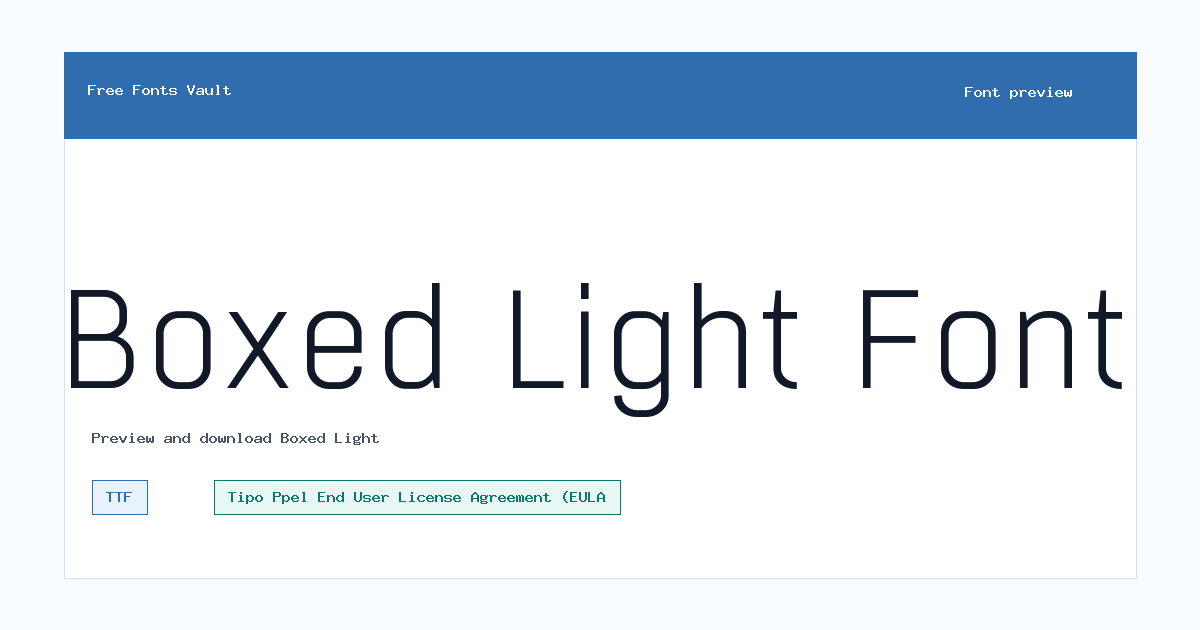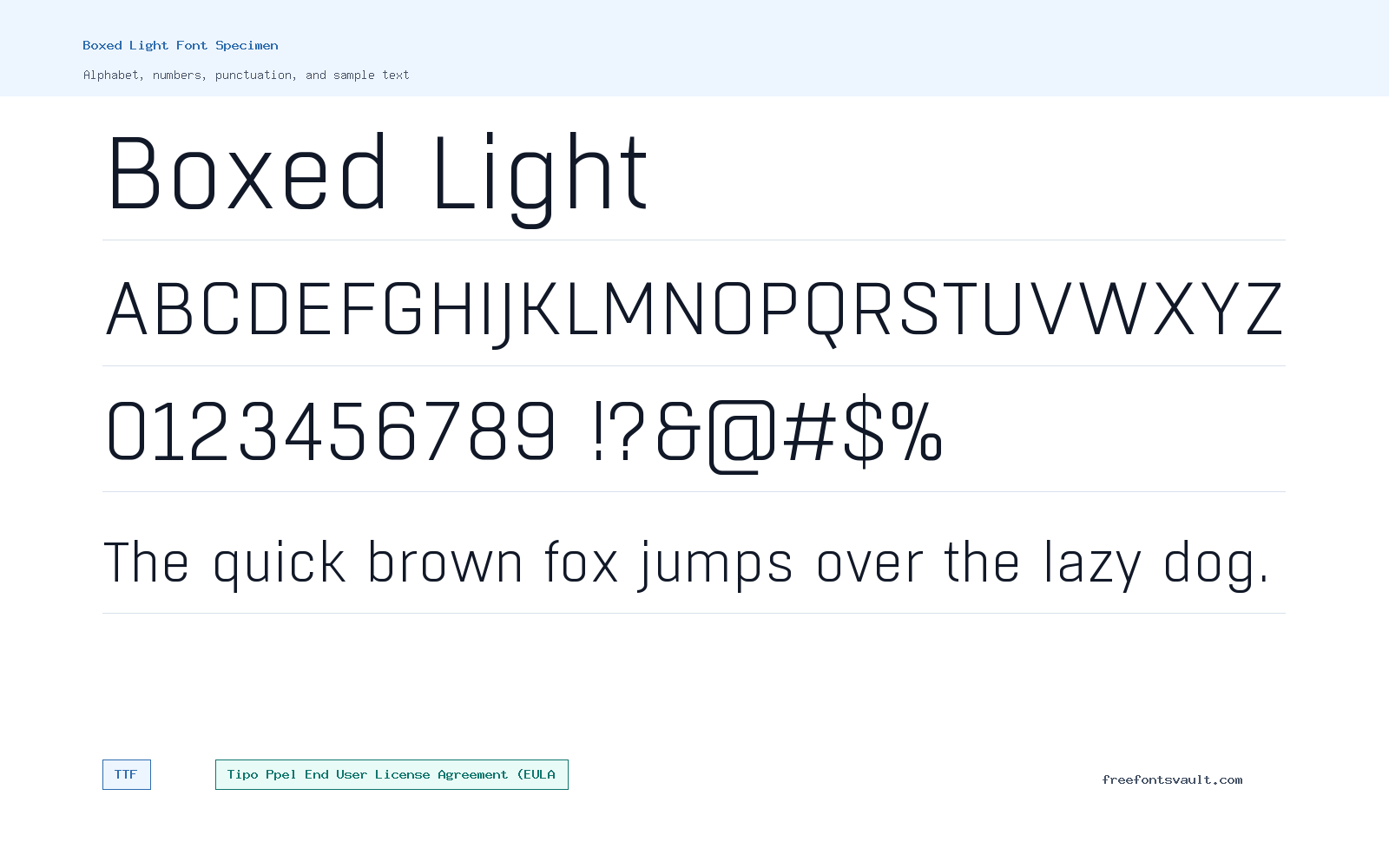
Boxed Light
- Designer Josep Patau Bellart
Boxed Light is a light 300-weight TTF font by Josep Patau Bellart, suited to clean headings, labels, and minimal layouts where heavy type would feel too strong.
Boxed Light gives text a lighter, more measured presence. It is a good style to test when a design needs order and clarity without the weight of a bold headline. The light weight can work well in editorial mockups, modern posters, signage studies, product labels, web hero text, and brand explorations where the type should feel structured but not loud.
- Clean structured appearance for minimal layouts
- Best tested at larger sizes or high-contrast settings
- Light headings, section titles, labels, and poster text
- Minimal editorial layouts and modern brand mockups
- Packaging concepts, signage tests, and clean web hero lines
- Short display copy where a thinner weight improves tone
- Design systems that need a restrained title style
- Pairing with a stronger body font for readable supporting copy
Use Boxed Light where a thin, orderly title style supports the design. Increase size or contrast if the letters feel too pale, and avoid using it for long paragraphs until you have tested readability at the final scale.